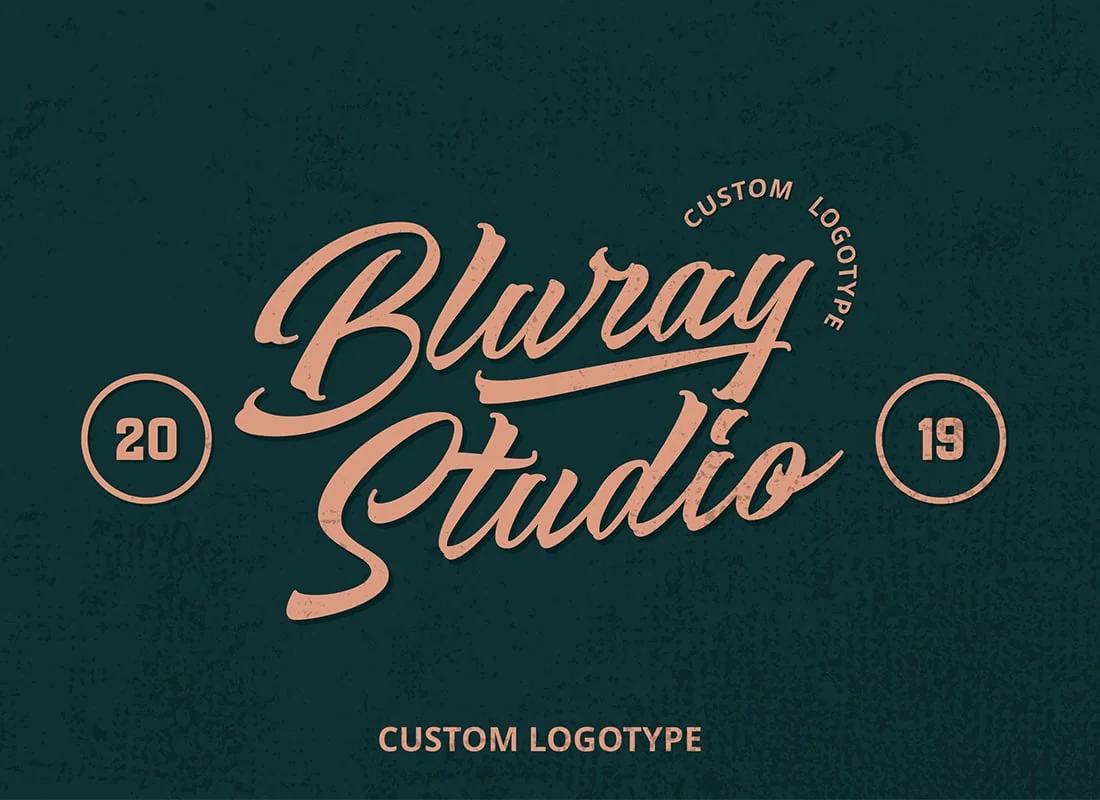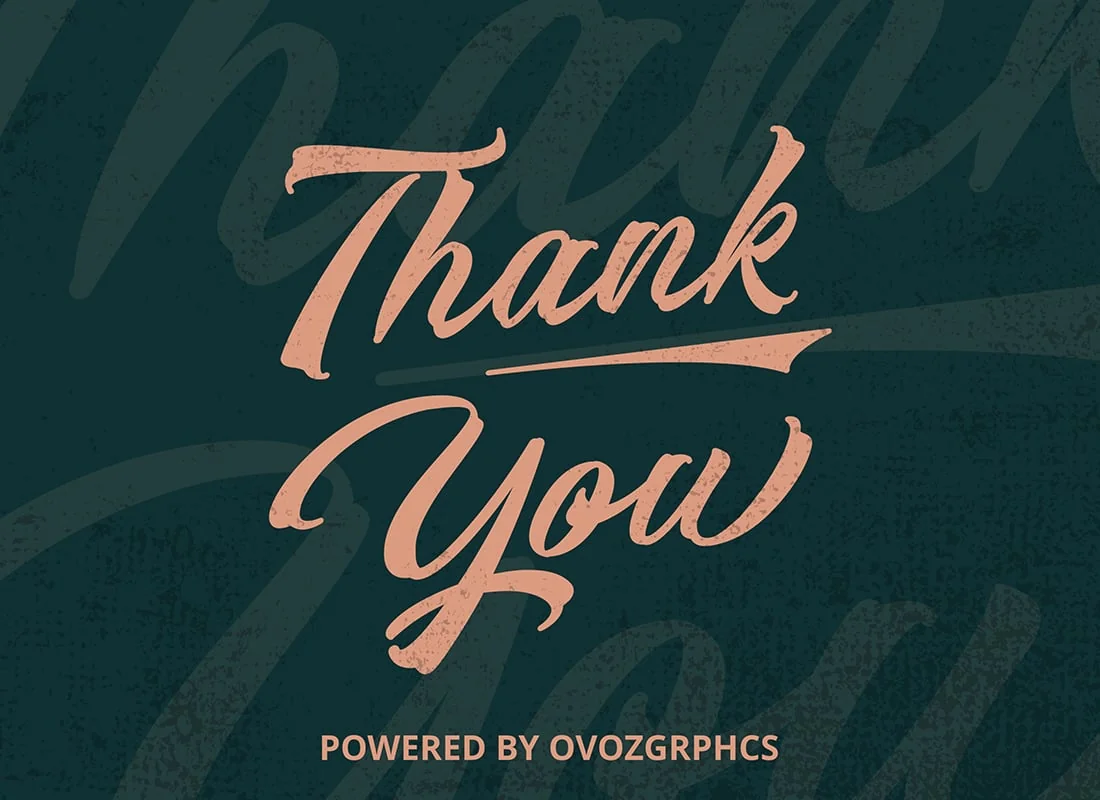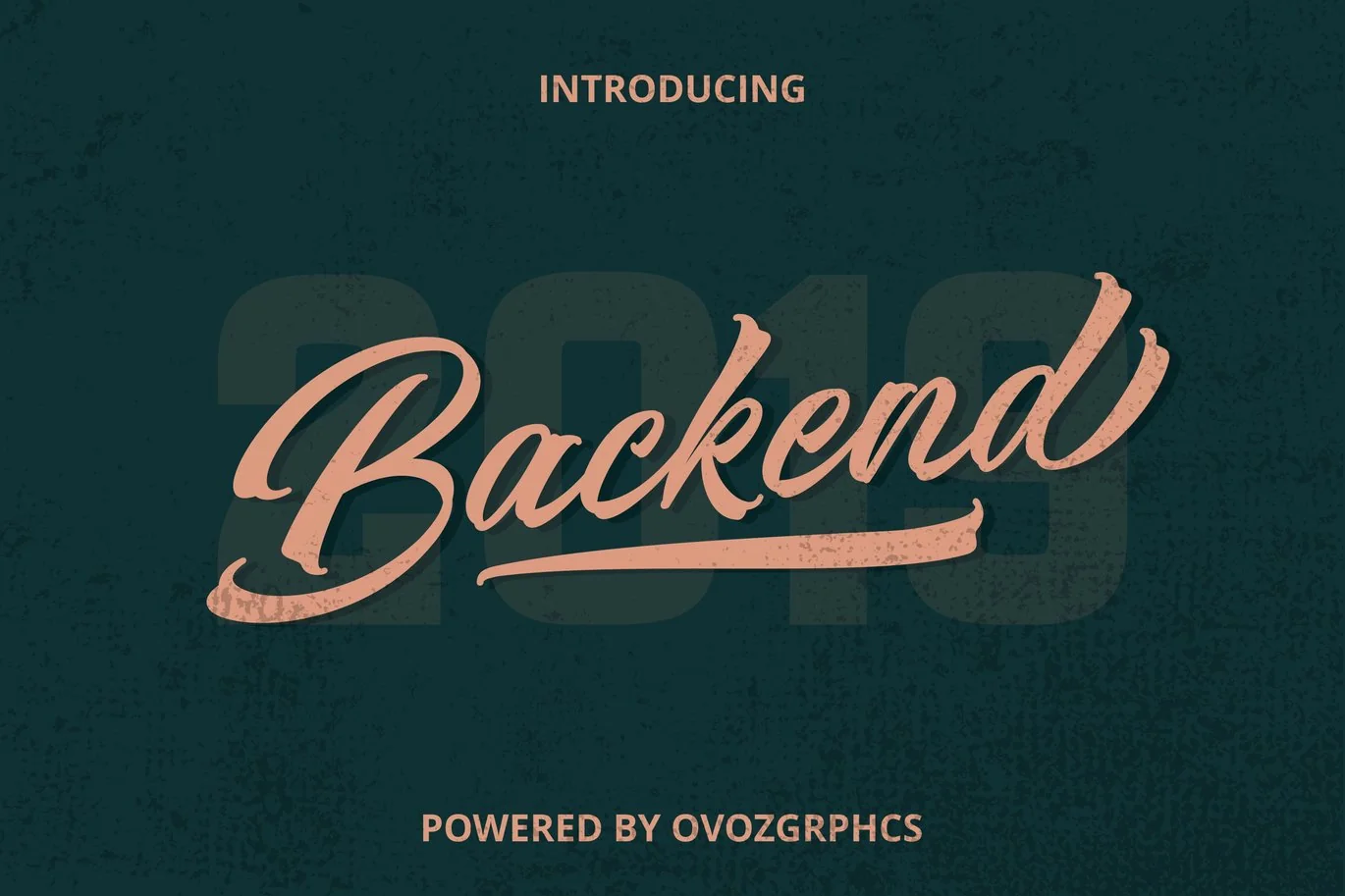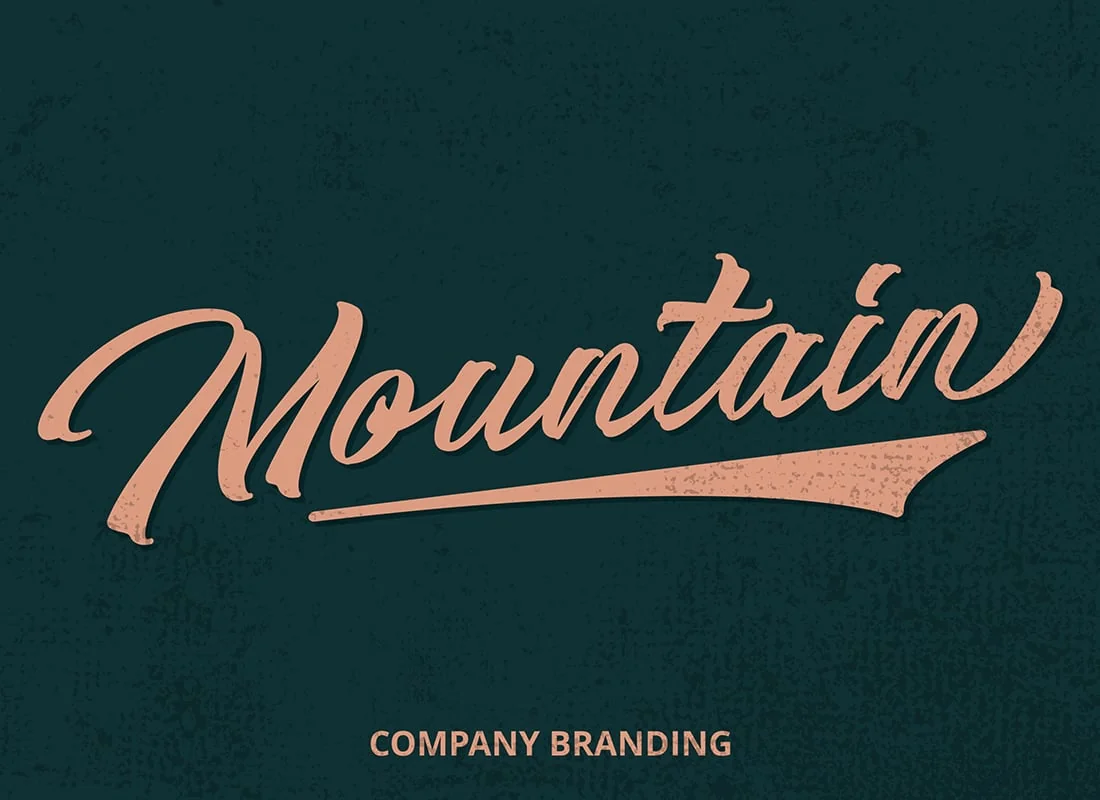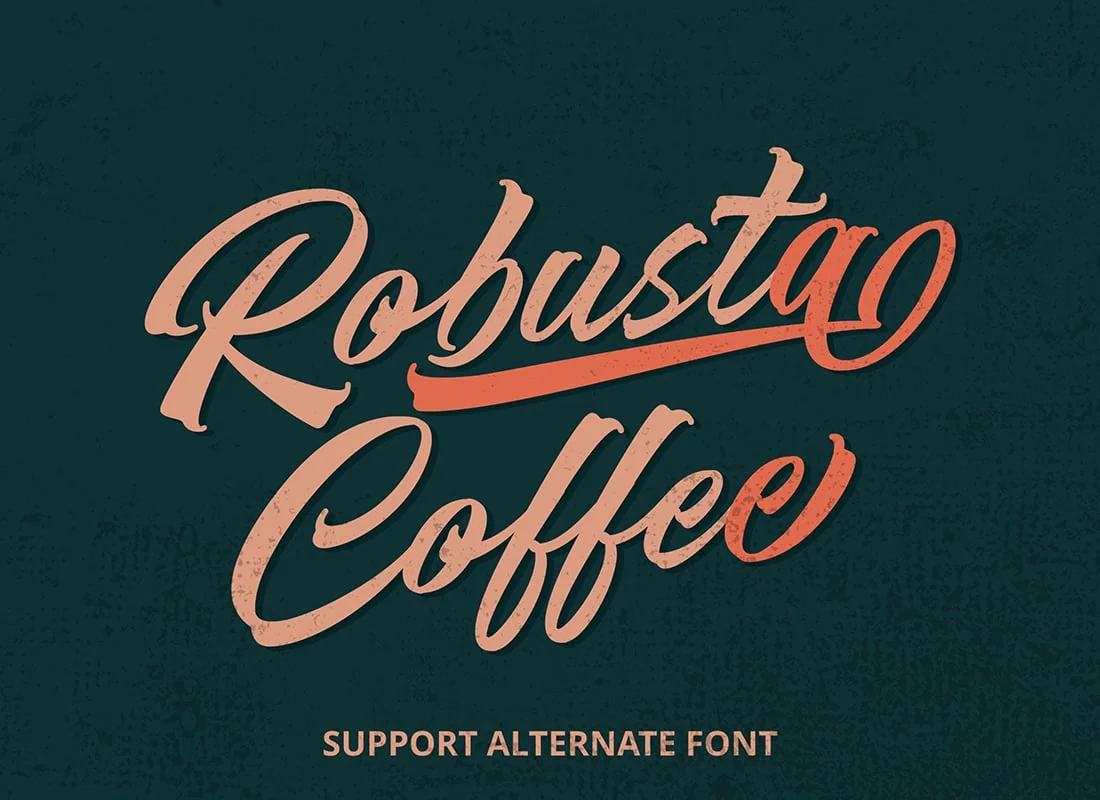
Backend Script Font
Backend Script font, is our new item that suitable for your team logo, or community logo.
Great for
Logo, Sticker, Jersey, Invitation Card, Brochure, etc.